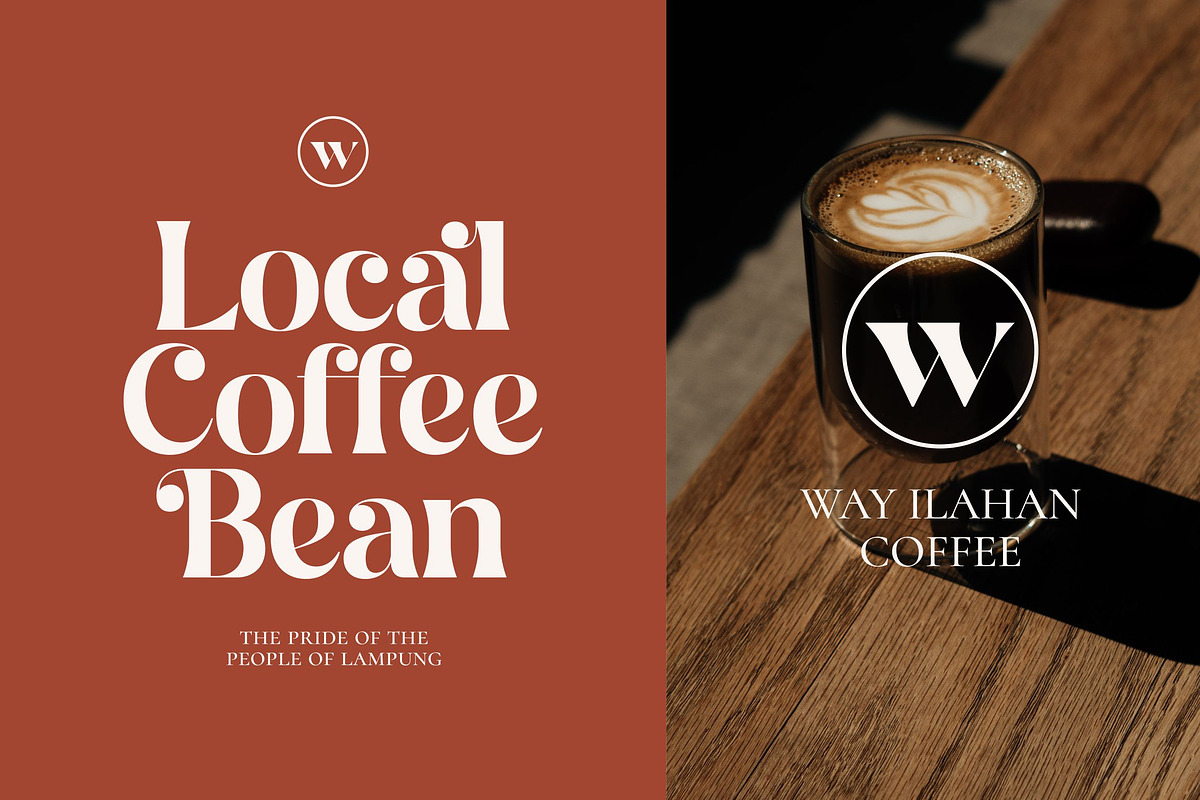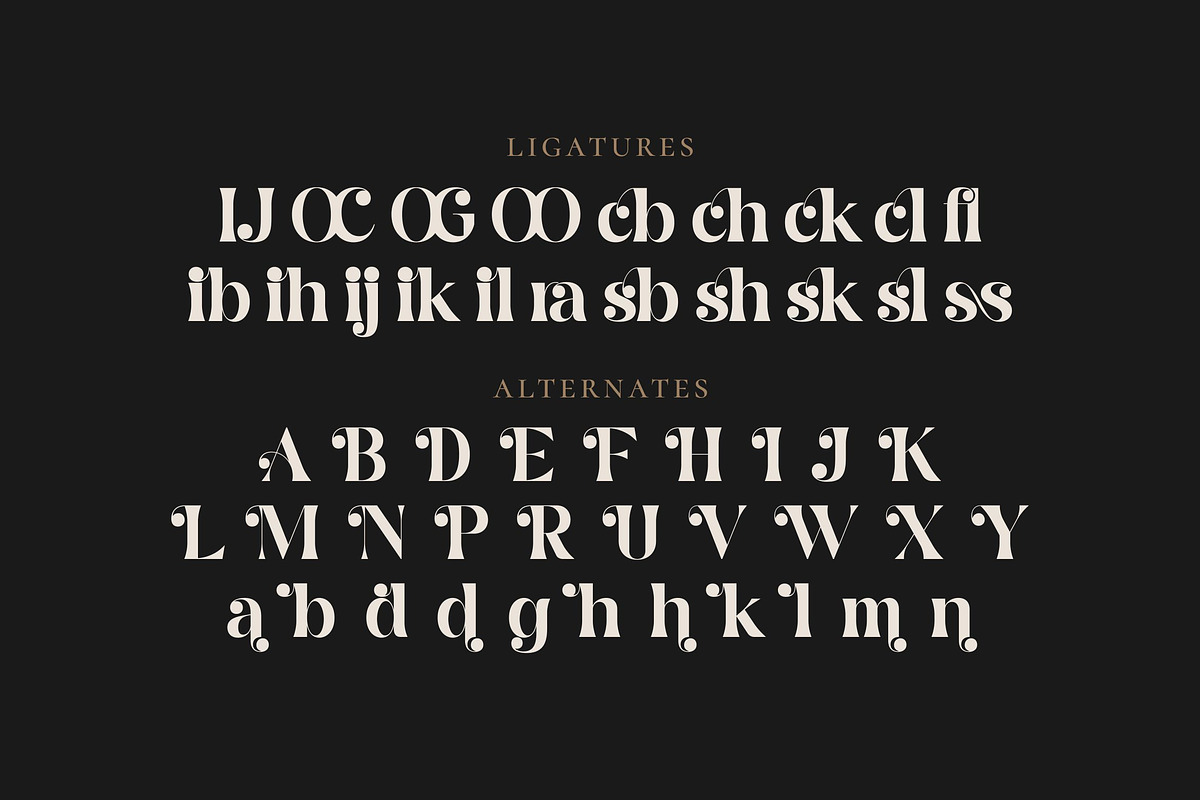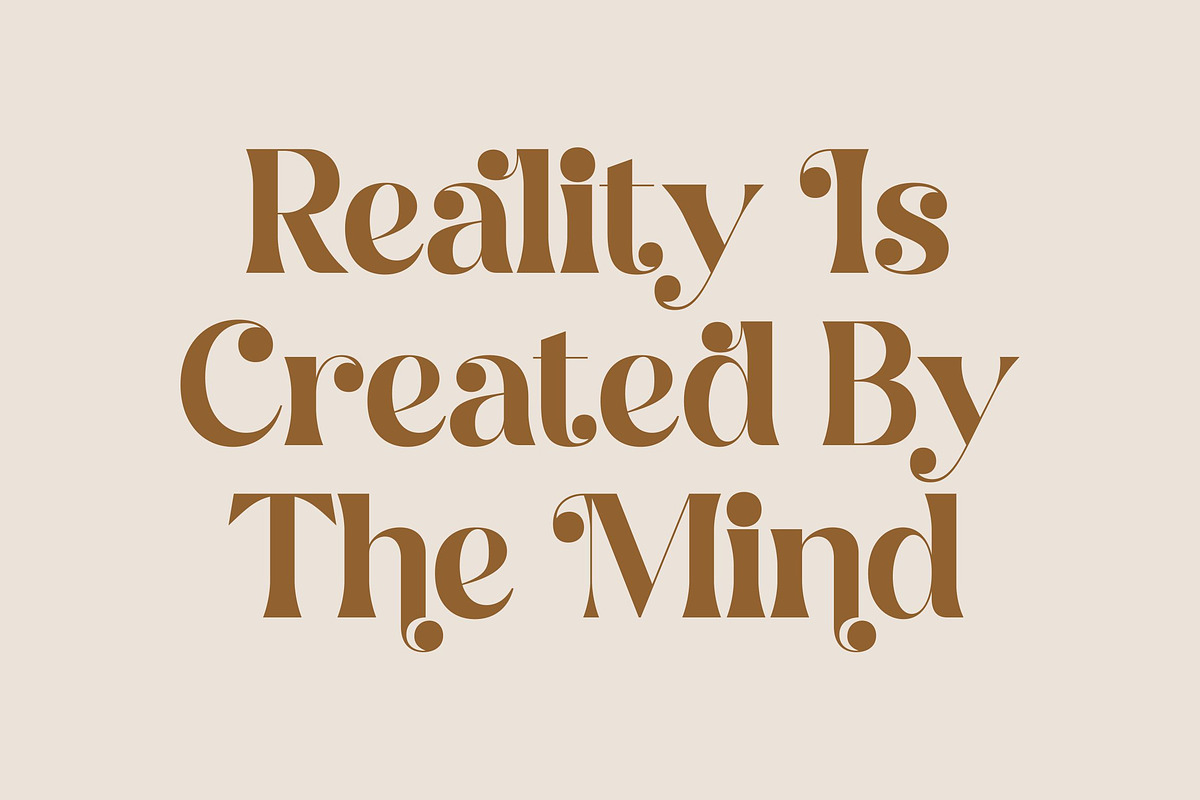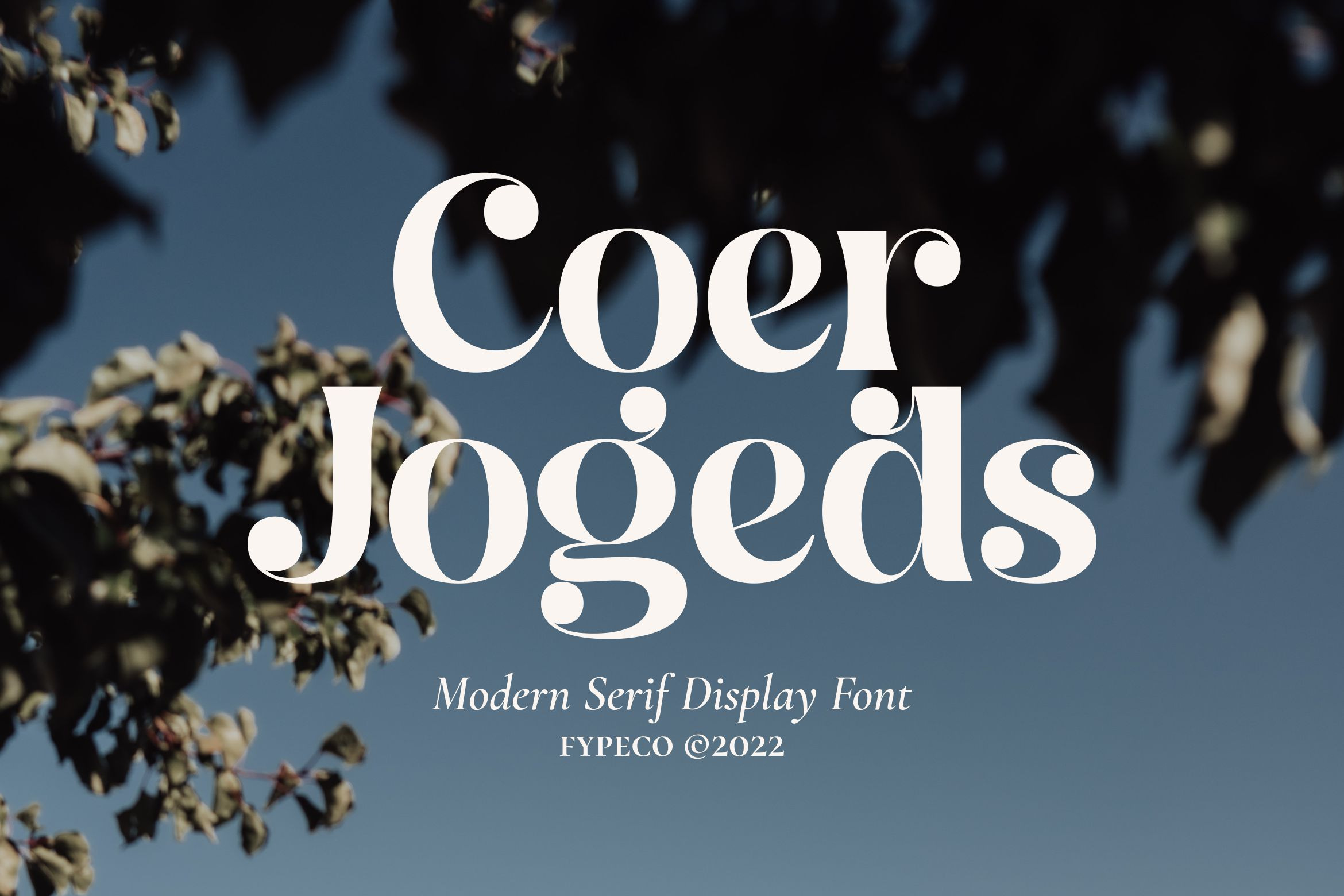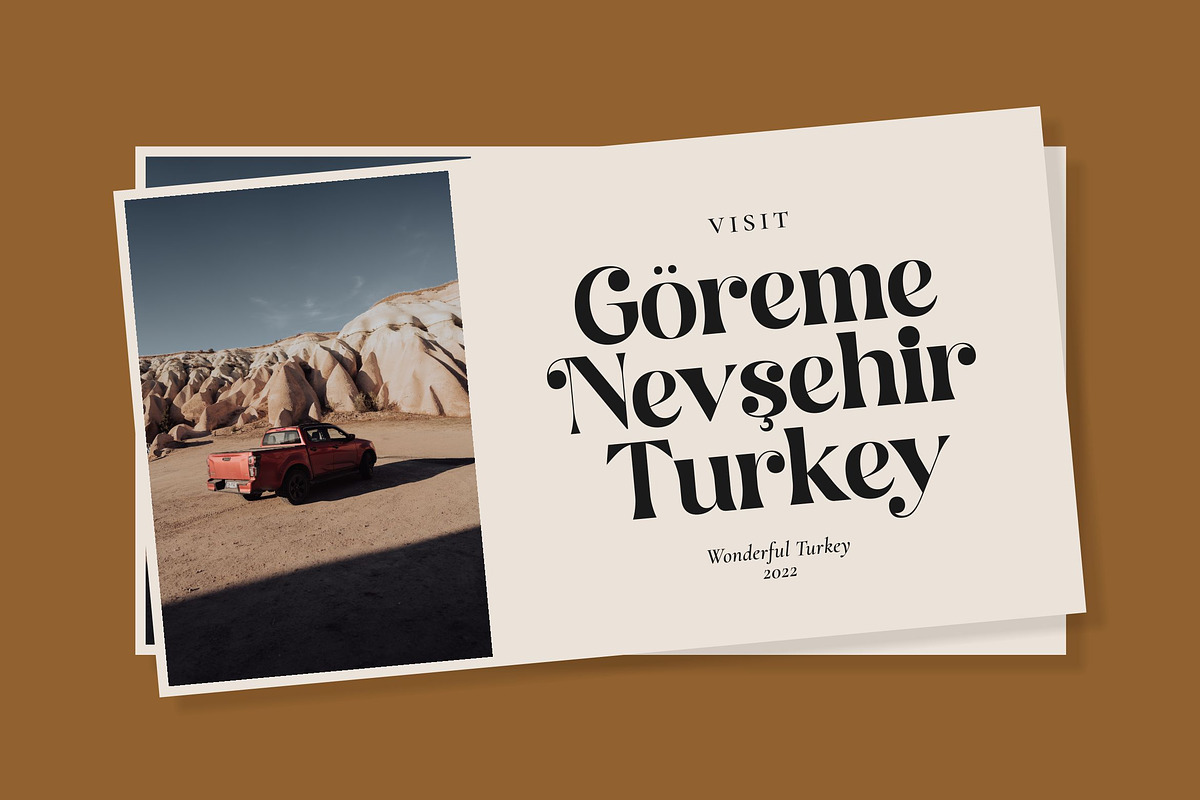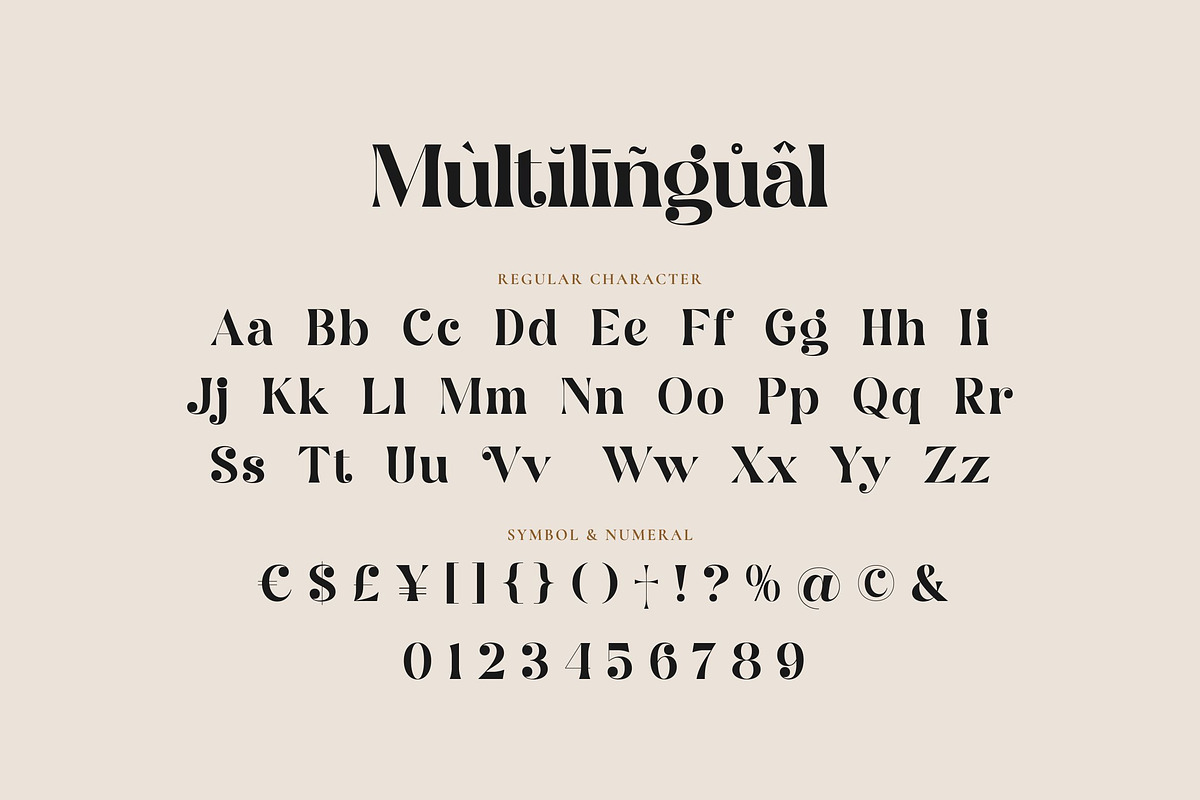
Coer Jogeds - Modern Serif Font
Coer Jogeds is unique serif display font with lot of alternates and ligatures. It's a very versatile font that works great in large and small sizes. Perfect for editorial projects, Logo design, Clothing Branding, product packaging, magazine headers, or simply as a stylish text overlay to any background image.
- Alternatives